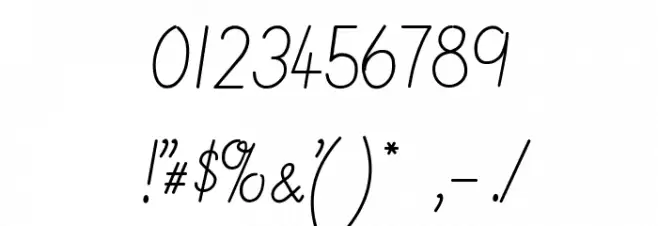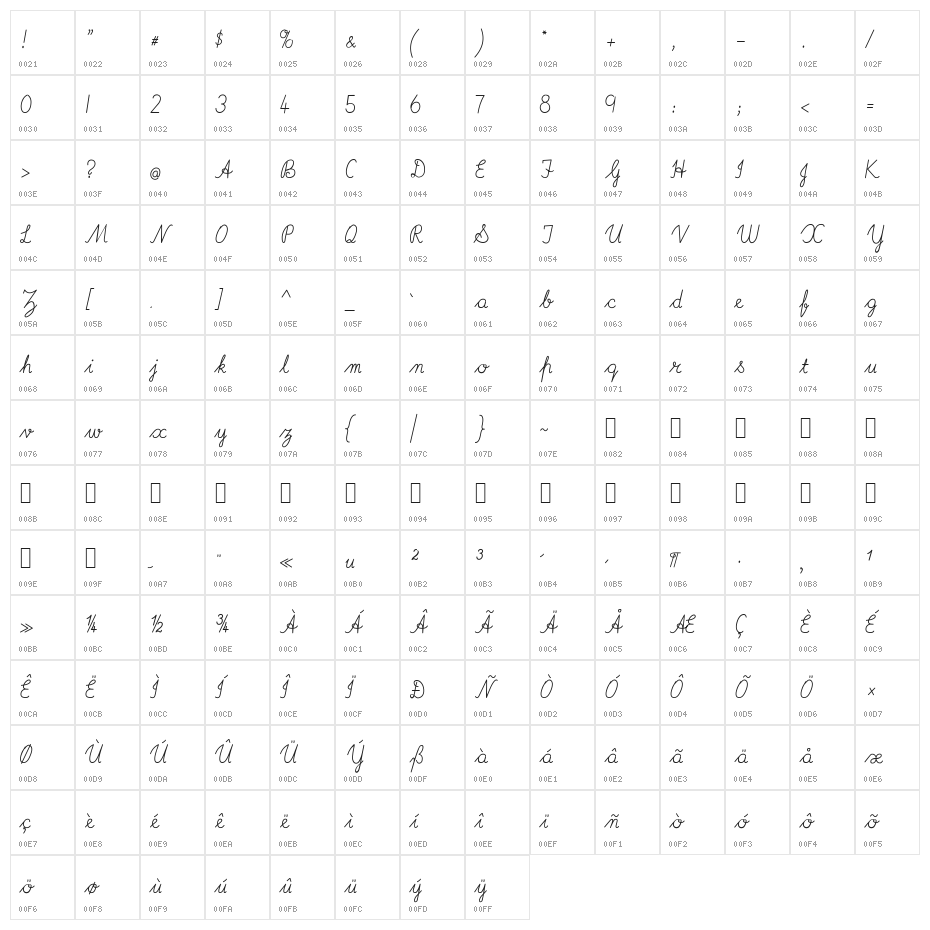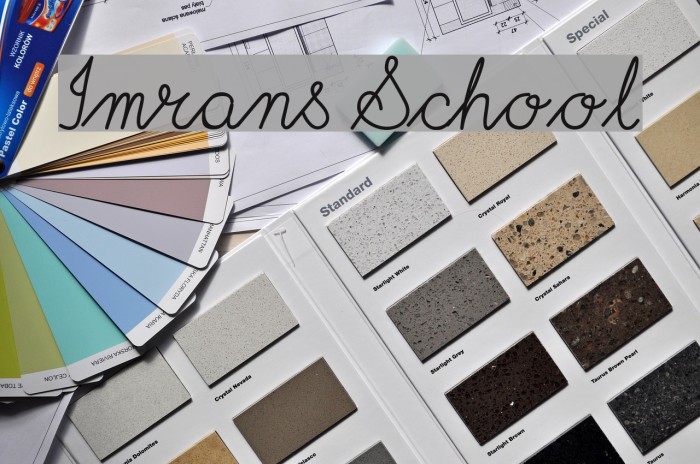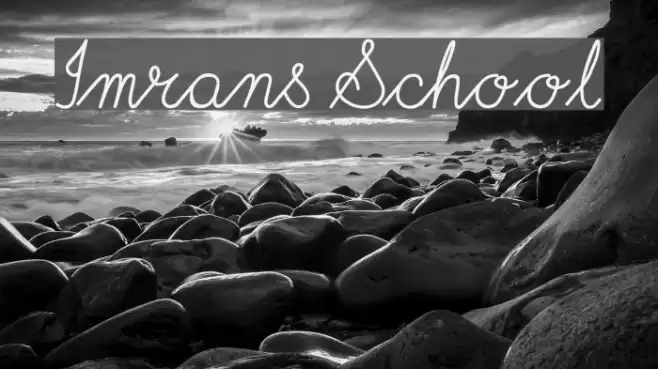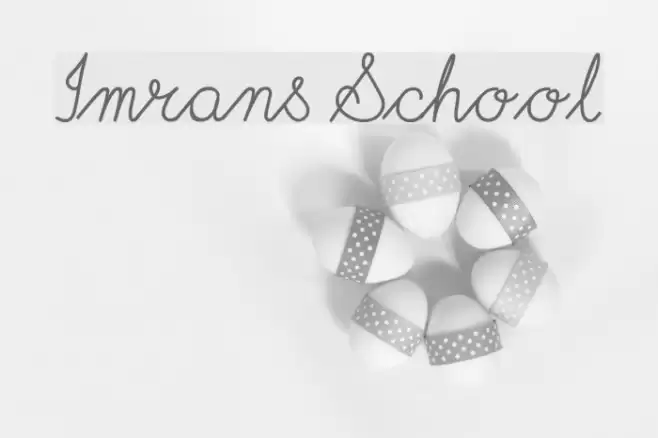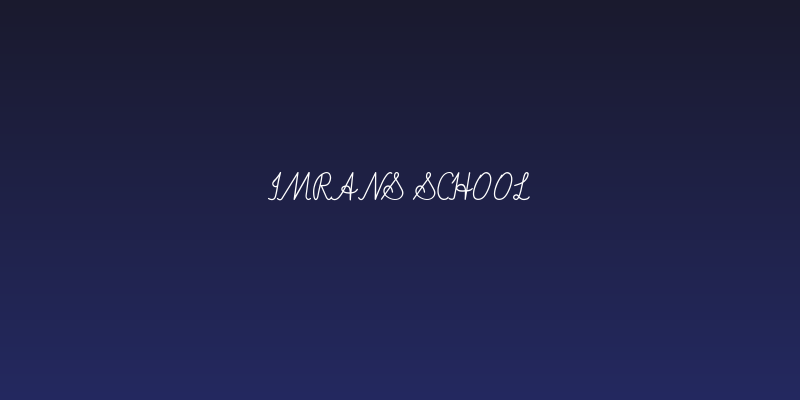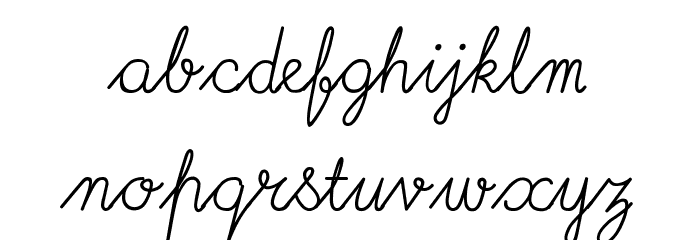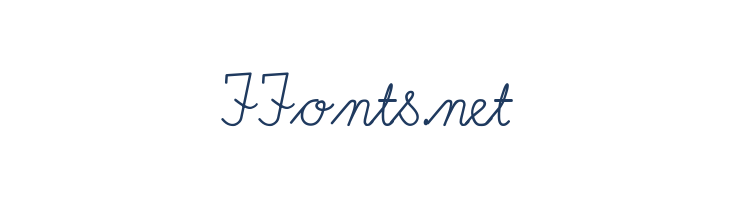
Imrans School Font
Imrans School Description
This font features a flowing, cursive style that mimics elegant handwriting. Each letter is smoothly connected, creating a seamless and graceful appearance. The uppercase letters are slightly more elaborate, with gentle loops and curves, while the lowercase letters maintain a consistent, fluid motion. The numerals and special characters are designed to complement the alphabet, maintaining the same cursive aesthetic. This font exudes a sense of sophistication and personal touch, making it ideal for projects that require a handwritten feel.
| Use Case | Logos, Invitations, Personal Correspondence |
| Proposed Projects | Ideal for wedding invitations, personal letters, greeting cards, and branding materials that require a personal and elegant touch. |